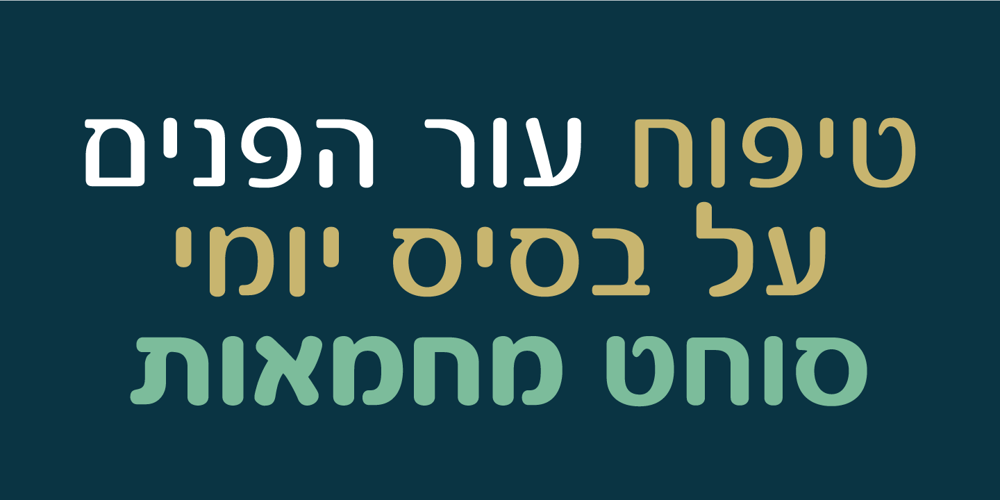
Pronto MF Font Family was designed by Zvika Rosenberg and published by Masterfont. Pronto MF contains 4 styles and family package options. Beautiful round stems makes this font family an elegant choice, useful both for texts and headlines.